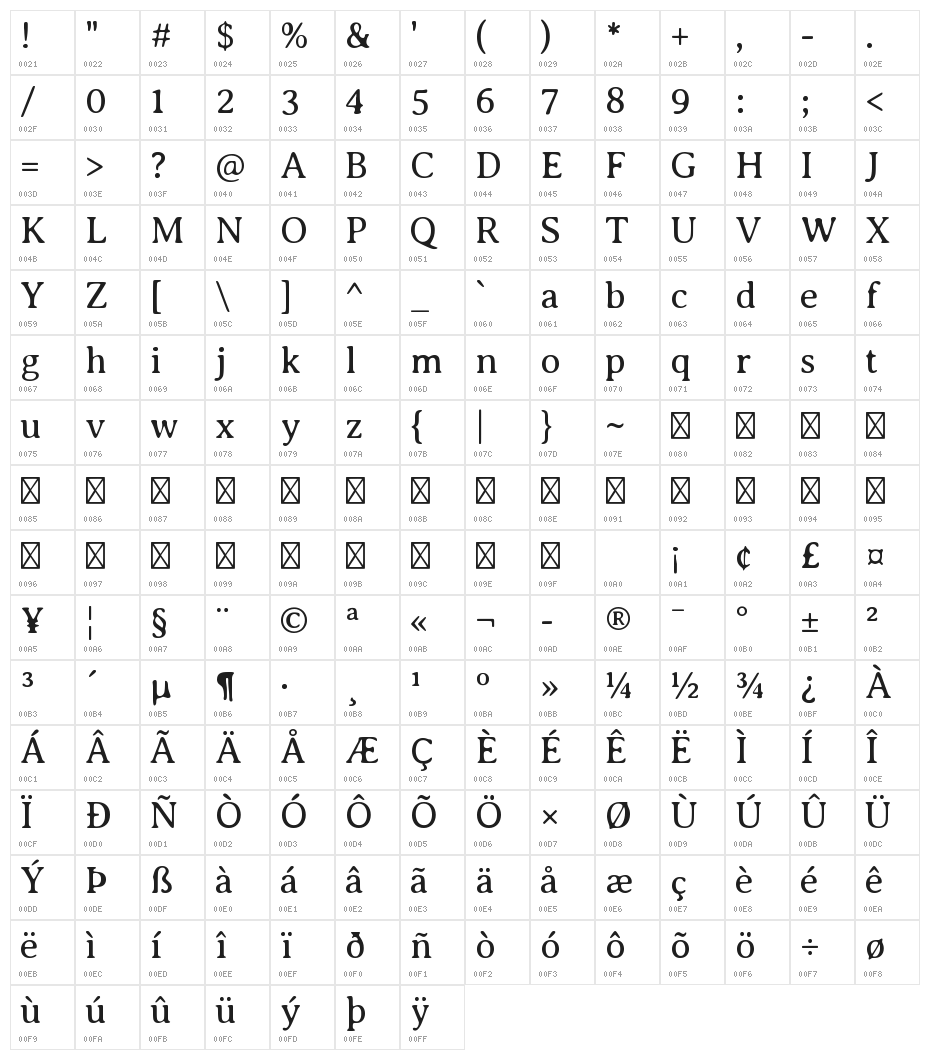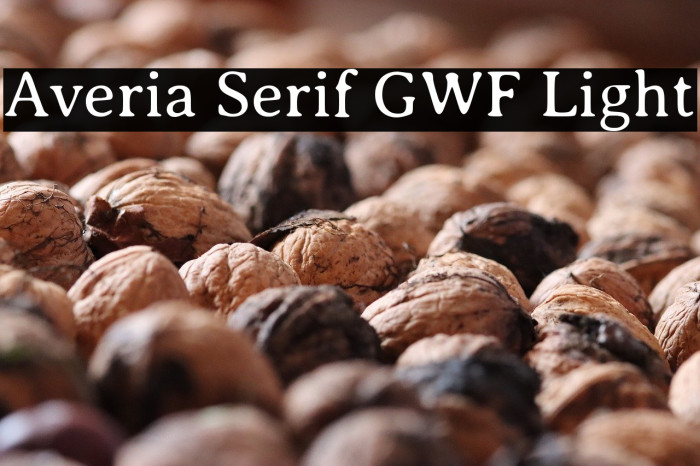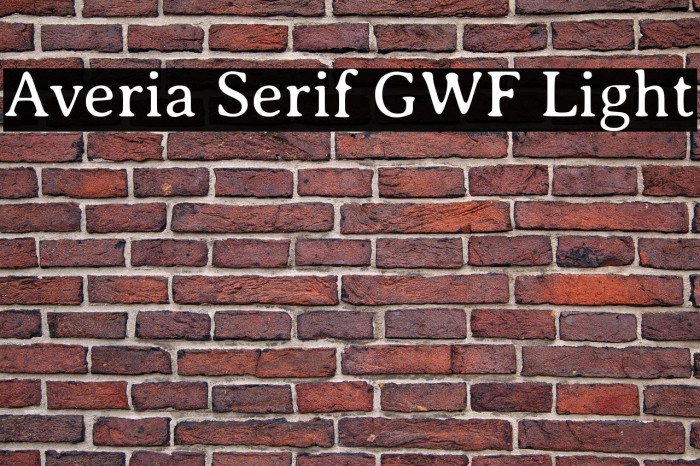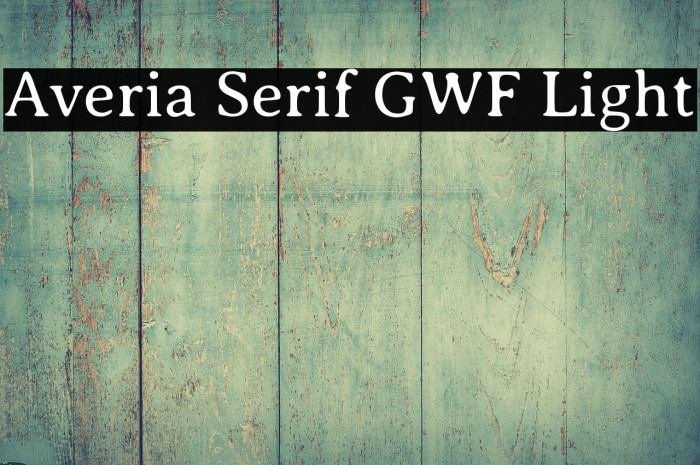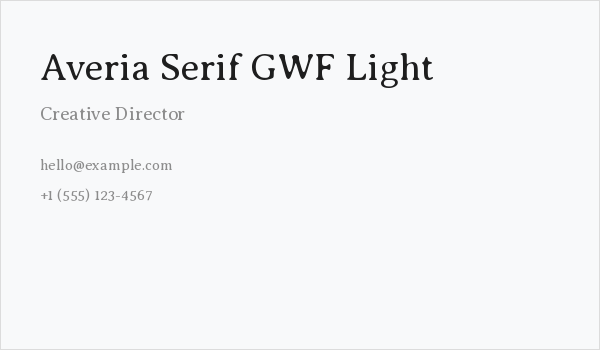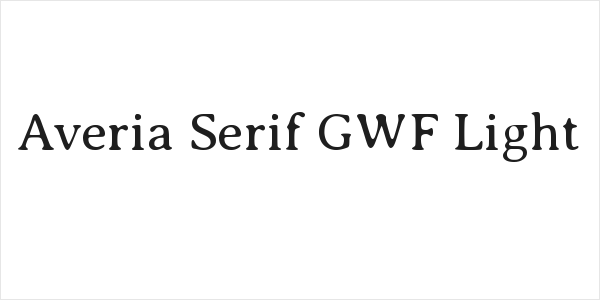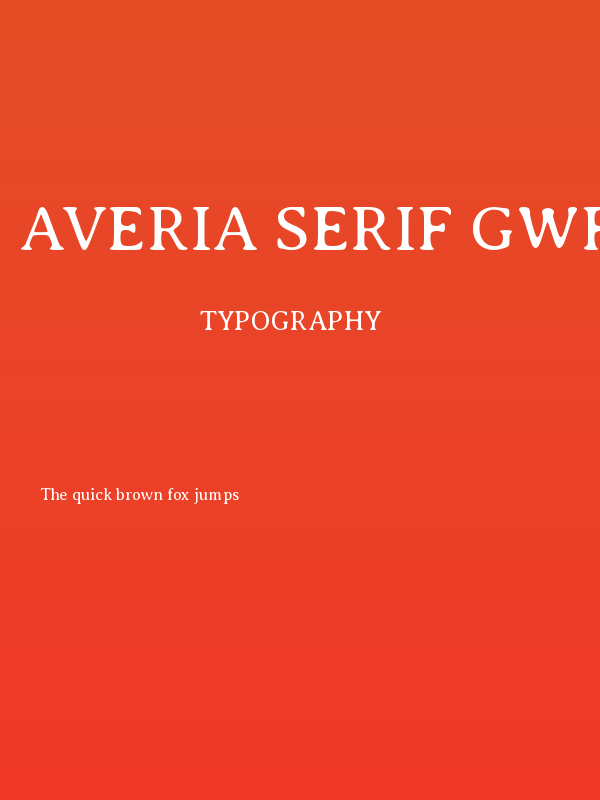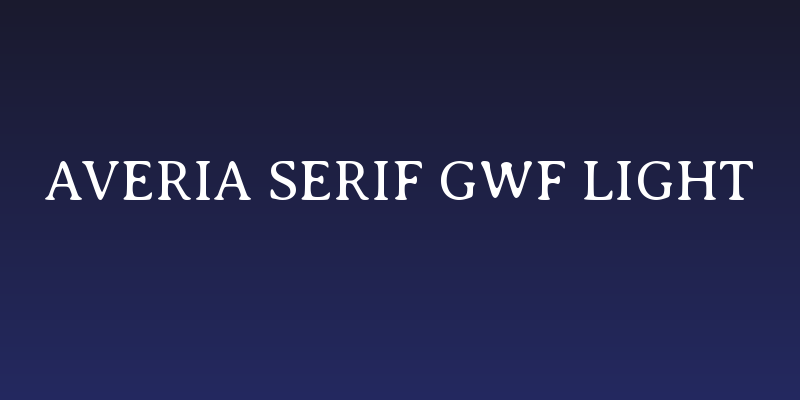
Averia Serif GWF Light Font
Averia Serif GWF Light Description
This font features a harmonious blend of classic serif elements with a modern twist. The characters are well-balanced, with slightly rounded edges that soften the overall appearance. The uppercase letters are bold and authoritative, while the lowercase letters maintain a friendly and approachable feel. Numbers and special characters are designed to complement the alphabet, ensuring consistency across all text. The font's light weight adds elegance and readability, making it suitable for a variety of design applications.
| Proposed Projects | Ideal for editorial design, book covers, and branding projects that require a touch of sophistication. |